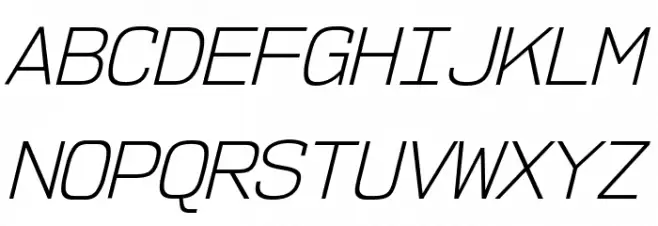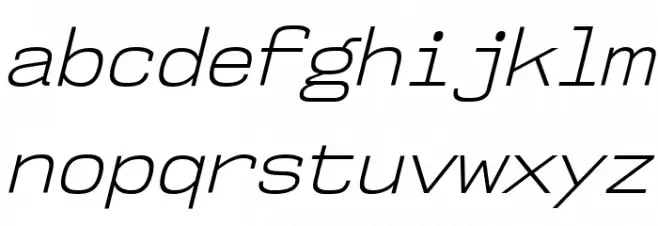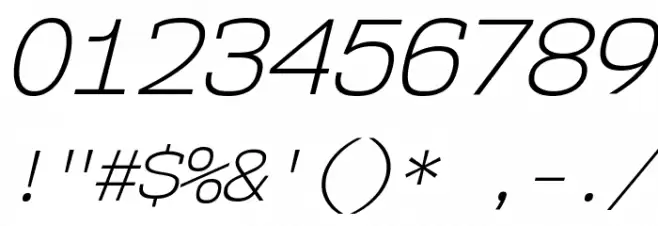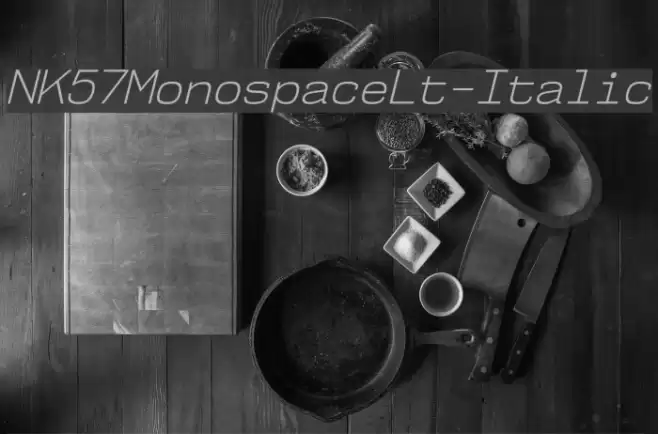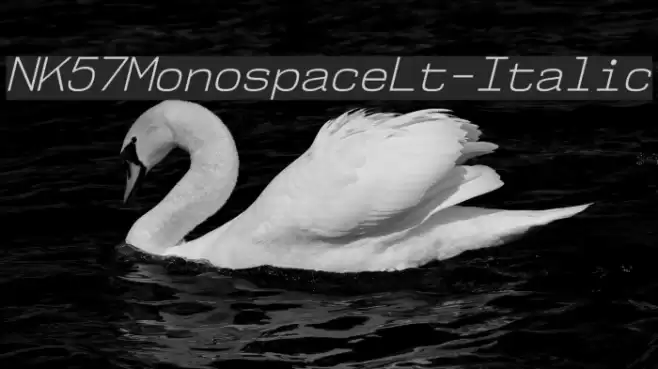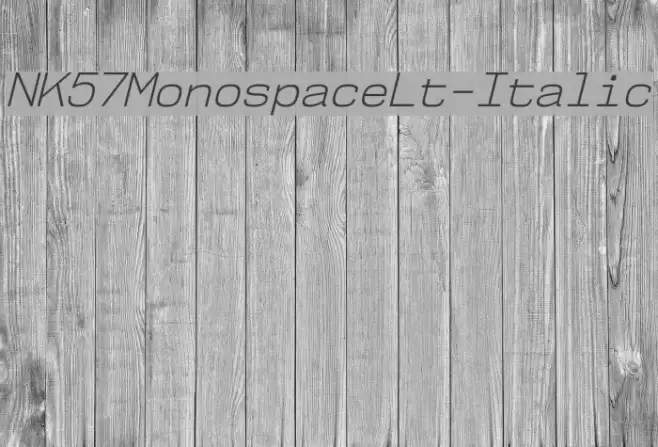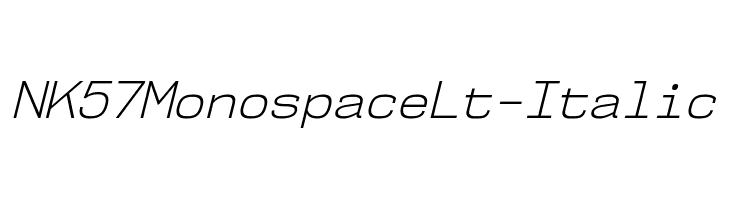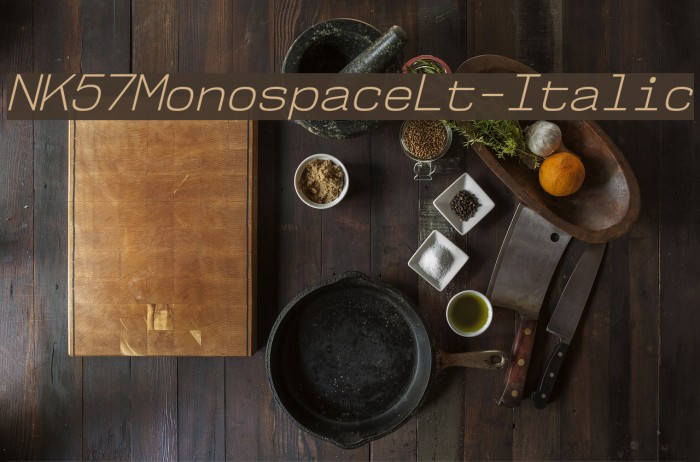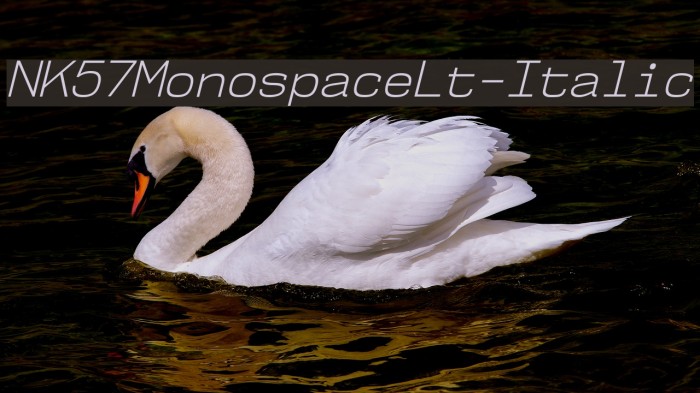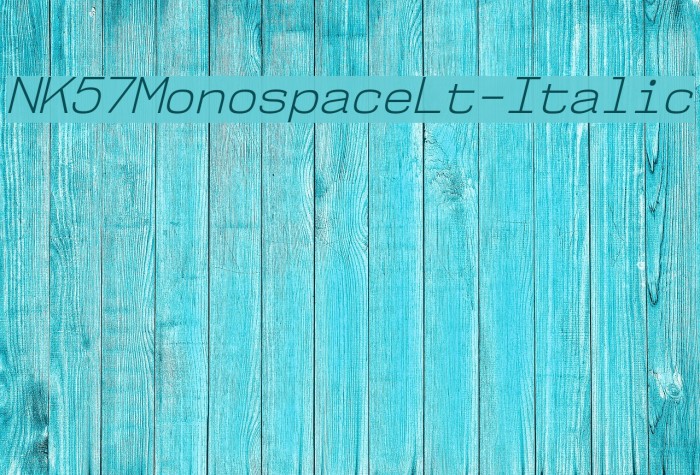
NK57MonospaceLt-Italic
This font is a sleek, modern monospaced typeface with a light weight and italic style. Each character is evenly spaced, providing a clean and organized appearance. The slanted design adds a dynamic and contemporary feel, making it suitable for both technical and creative applications. The uniform stroke width ensures readability, while the slight curvature in certain letters adds a touch of elegance. This font is ideal for coding, technical documentation, or any project that requires a modern, streamlined look.
A modern, light, italic monospaced font with even spacing and sleek design.
- Proposed Projects: Ideal for coding, technical documentation, modern branding, and creative projects.
- Category: Monospaced
- Weight: Light
- Use Case: Coding, Technical documentation, Modern branding